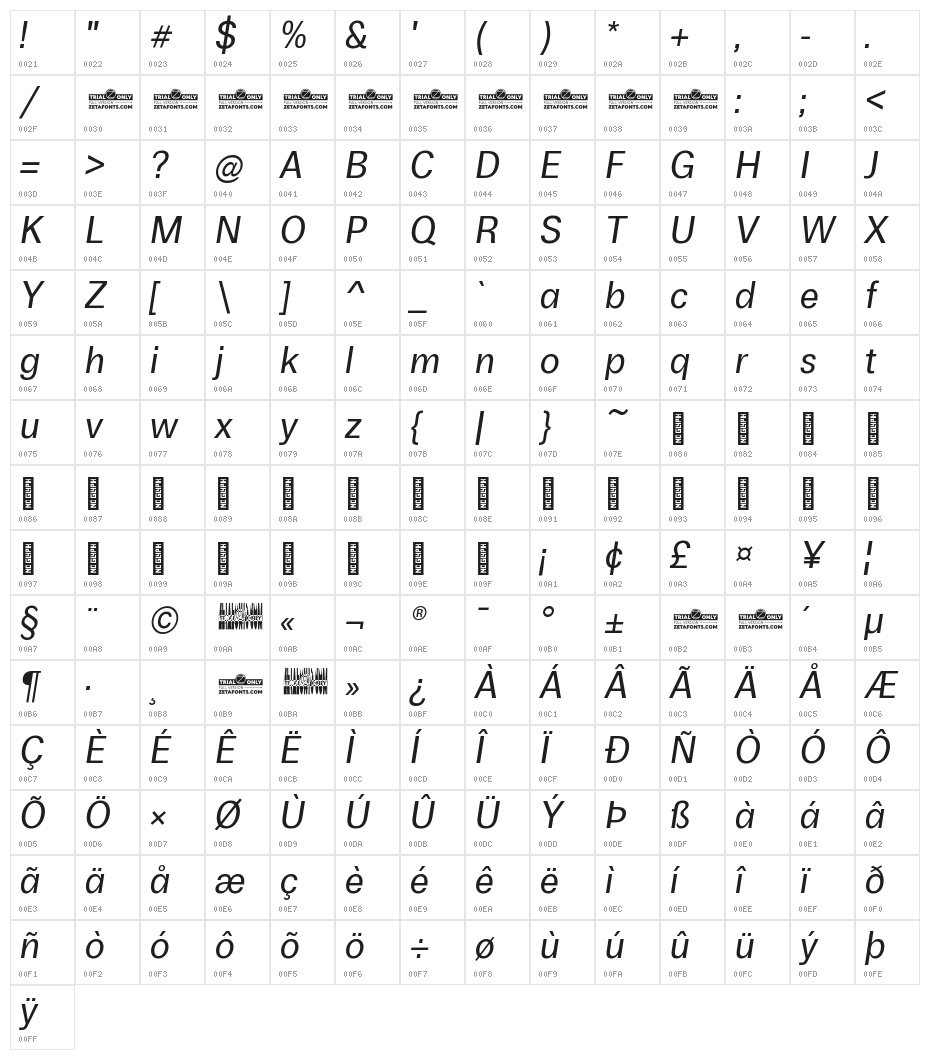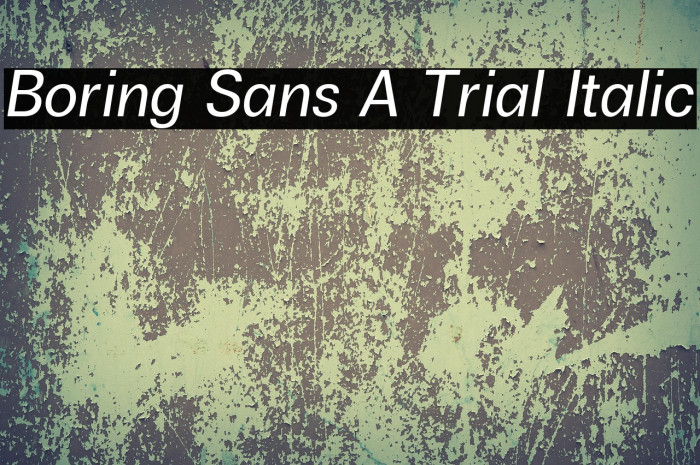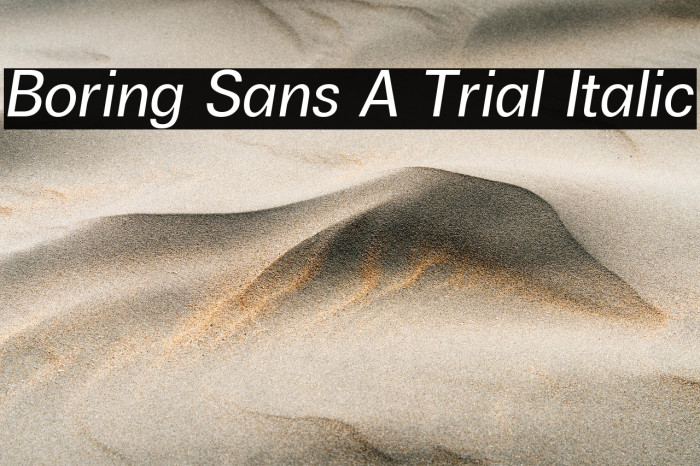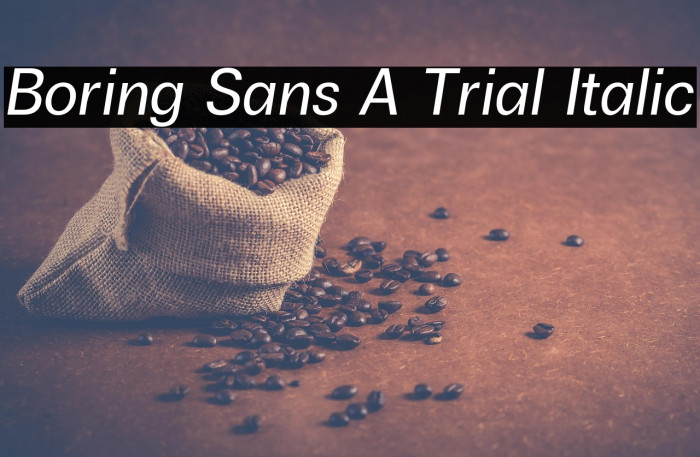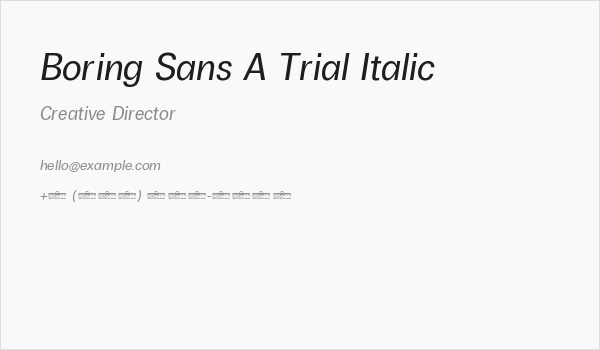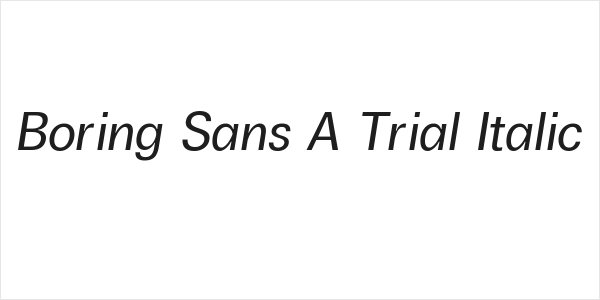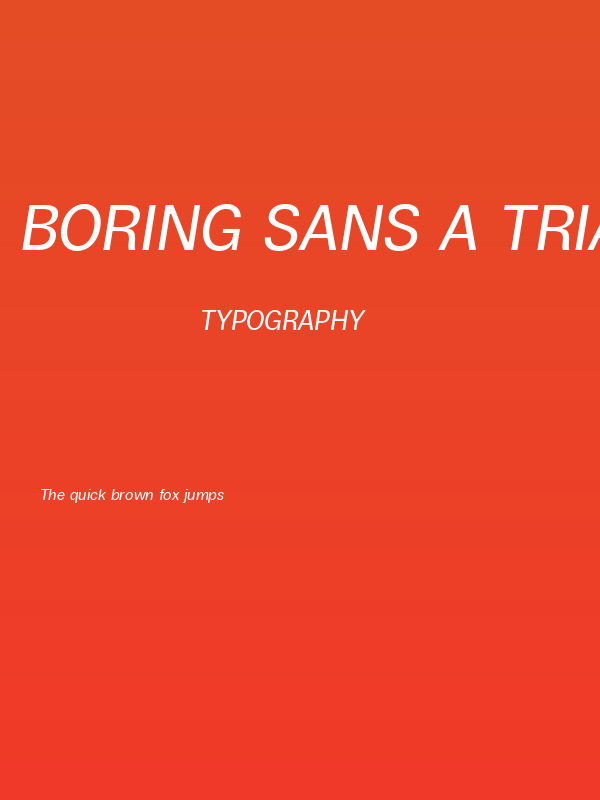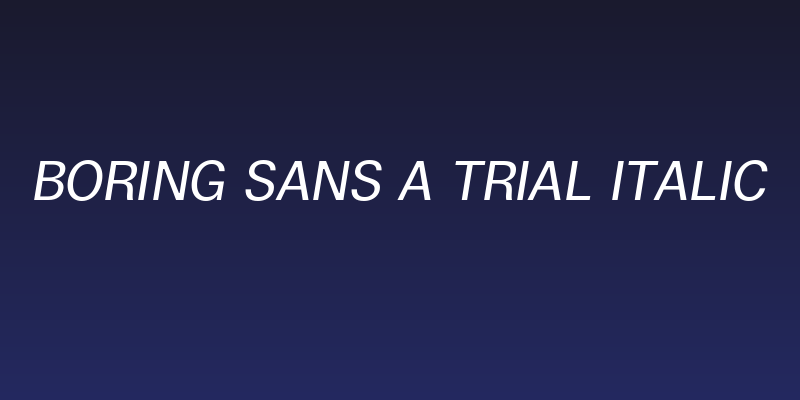
Boring Sans A Trial Italic Font
Boring Sans A Trial Italic Description
This font features a clean and modern sans-serif design with a slight italic slant, giving it a dynamic and contemporary feel. The characters are evenly spaced, providing excellent readability. The uppercase and lowercase letters maintain a consistent style, with smooth curves and straight lines that enhance its sleek appearance. The numerals and special characters are designed to match the overall aesthetic, ensuring uniformity across different uses. This font is versatile, suitable for both digital and print media, and can be used effectively in various design projects.
| Proposed Projects | Ideal for branding, advertising, web design, and editorial layouts. |